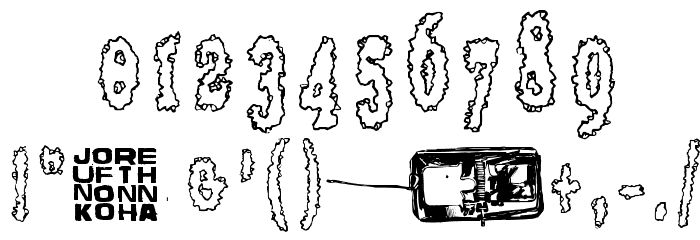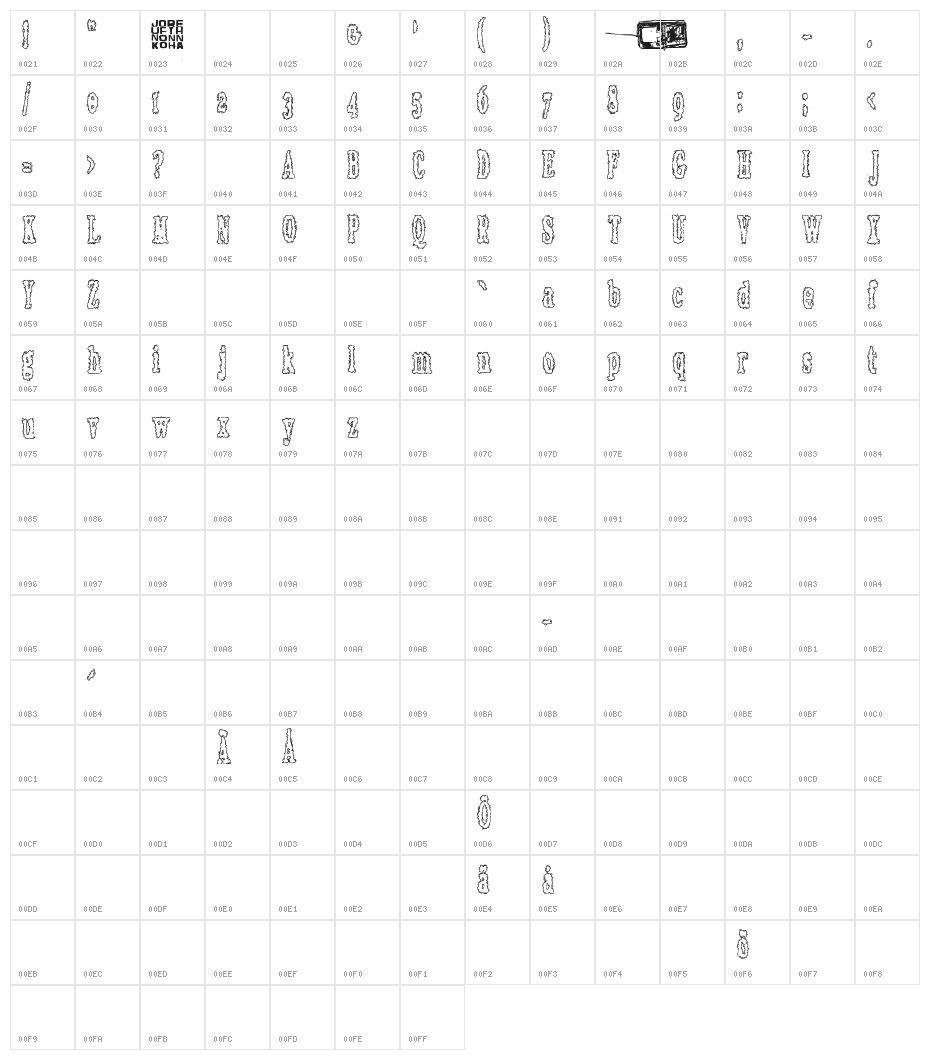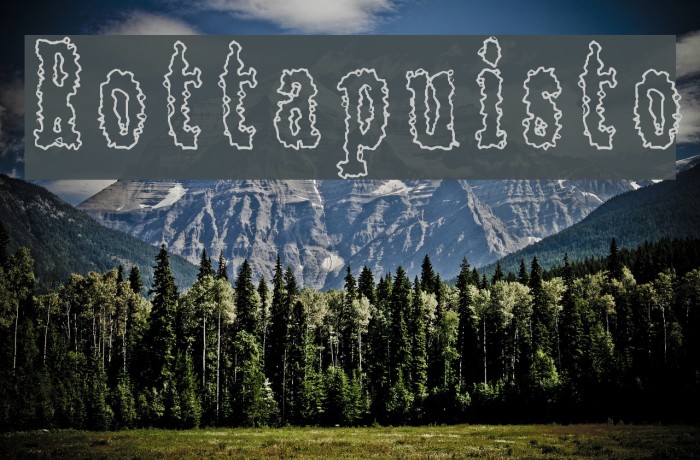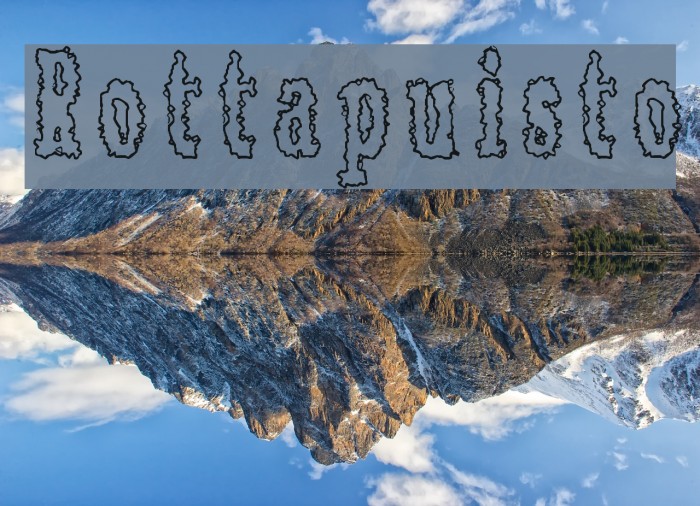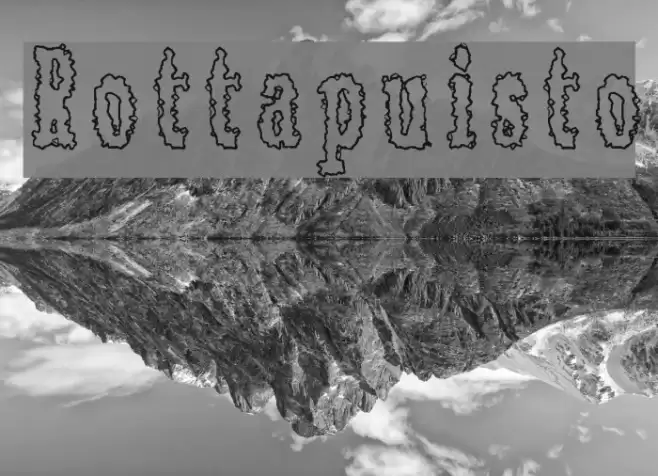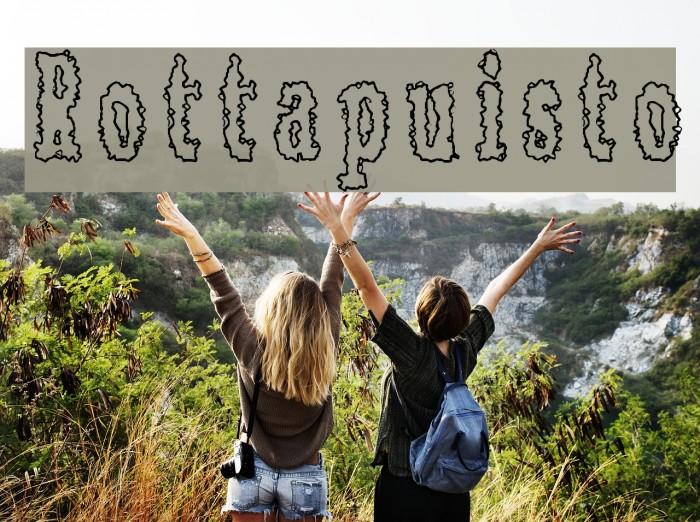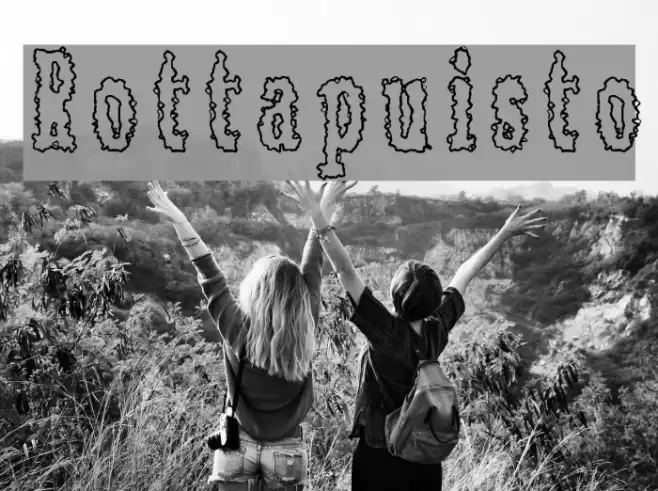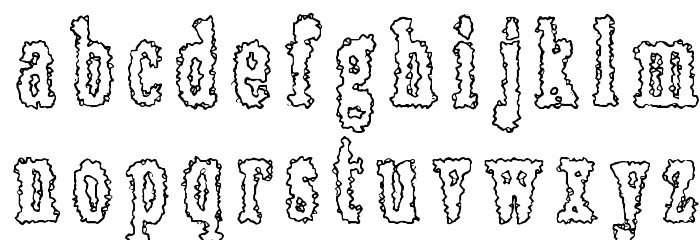
Rottapuisto Font
Rottapuisto Description
This font features a unique, decorative style with a playful and irregular outline that resembles a hand-drawn effect. The characters have a whimsical, almost cartoonish appearance, with uneven edges and a textured look that adds a sense of movement and dynamism. The uppercase and lowercase letters maintain a consistent style, with each character exhibiting a distinct personality. Numbers and special characters follow the same design principles, ensuring a cohesive look across all elements. This font's quirky and artistic nature makes it stand out, offering a creative flair to any project.